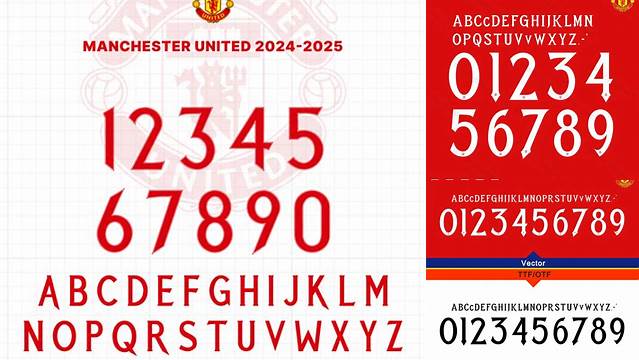
Hey guys! Are you a die-hard Manchester United fan looking to spice up your digital life? Well, you've come to the right place! In this article, we're diving deep into the world of Manchester United fonts, specifically focusing on the elusive Manchester United font 2026 and how you can snag it for your PC. Whether you're designing a fan website, creating social media graphics, or just want to show your support in your documents, having the right font is crucial. So, let's get started and explore everything you need to know about getting your hands on that perfect font!
1. Understanding the Importance of Official Fonts
Okay, so why is the official font so important anyway? Well, for starters, it's all about authenticity. Using the official Manchester United font gives your projects a professional and genuine feel. Imagine creating a banner with a generic font – it just wouldn't have the same impact, right? The official font is part of the club's branding, and it helps maintain a consistent image across all platforms. This consistency is super important for building brand recognition and loyalty. Think about it – when you see that specific font, you instantly associate it with Manchester United. That’s the power of a well-chosen, official typeface. Plus, using the right font shows that you're a true fan who pays attention to the details. It's like wearing the official jersey versus a knock-off – the difference is clear to anyone who knows their stuff. So, let’s dive deeper into why these fonts are more than just letters and numbers.
The Role of Typography in Branding
Typography, guys, is a huge part of branding. It’s not just about picking a font that looks cool; it's about choosing a typeface that reflects the club's personality and values. For Manchester United, the font needs to be strong, bold, and instantly recognizable. It’s got to convey a sense of history, tradition, and winning spirit. The font used in the club's logo, jerseys, and official communications plays a massive role in shaping the team's identity. It’s what makes the brand cohesive and memorable. Think about other major brands – Coca-Cola, Disney, even tech giants like Apple – they all have distinctive fonts that are synonymous with their brand. That’s the level of importance we’re talking about. So, when you’re looking for that Manchester United font, you’re not just looking for letters; you’re looking for a piece of the brand itself.
Maintaining Consistency Across Platforms
Consistency, my friends, is key in branding. Imagine if Manchester United used a different font on their website, social media, and merchandise – it would be a branding nightmare! Using the official Manchester United font across all platforms ensures that everything looks and feels like it belongs to the club. This consistency helps build trust and recognition with fans. Whether you’re seeing the font on a player’s jersey, a billboard, or a digital graphic, it reinforces the club’s identity. This is why major sports teams and brands invest so much in their visual identity guidelines. It’s not just about aesthetics; it’s about creating a cohesive and recognizable brand experience. So, when you download that Manchester United font 2026, you’re contributing to this consistency and showing your support in a visually authentic way.
Showing Support with the Right Font
Let's be real, using the official Manchester United font is a badge of honor for any true fan. It's a way to show your support and passion for the club in a tangible way. Whether you’re creating fan art, designing a personal website, or just want your documents to reflect your fandom, using the right font makes a statement. It says, "I'm a Red Devil, and I'm proud of it!" Think about it – when you see someone using the official font, you know they’re serious about their support. It’s like wearing the team’s colors or displaying a club flag. It’s a visual signal that you’re part of the Manchester United family. So, go ahead and download that Manchester United font 2026 and let your fandom shine through in every project you create.
2. Identifying the Official Manchester United Font
Okay, so how do you actually identify the official Manchester United font? It's not always as straightforward as you might think. Clubs often use custom fonts or variations of existing fonts, so it can be tricky to pinpoint the exact one. One of the best ways to identify the font is by looking at official Manchester United materials, like their website, merchandise, and match-day programs. Pay close attention to the font used for player names and numbers on the jerseys, as well as any official club documents. You can also check out Manchester United’s brand guidelines, if they are publicly available. These guidelines often specify the fonts used for different purposes. Once you have a good idea of what the font looks like, you can use online font identification tools to help you narrow down the possibilities. Let’s dive into some specific ways to figure out which font is the real deal.
Examining Official Club Materials
One of the best ways to identify the official Manchester United font is to examine official club materials. This includes everything from their website and social media graphics to their match-day programs and merchandise. Pay close attention to the font used for player names and numbers on the jerseys, as well as any official club documents. Often, the font used in these materials is a custom font or a licensed font that is specifically chosen for the club's branding. By carefully studying these materials, you can get a good sense of the font's characteristics, such as its weight, style, and overall appearance. This will help you narrow down your search when you start looking for the font online. Remember, the devil is in the details, so take your time and really analyze the fonts used in official Manchester United materials.
Checking Brand Guidelines (If Available)
If you're really serious about finding the official Manchester United font, checking the club's brand guidelines is a great place to start. Many major sports teams and organizations have publicly available brand guidelines that outline their visual identity, including the fonts they use. These guidelines often specify the exact font names and variations used for different purposes, such as headlines, body text, and logos. While Manchester United's brand guidelines may not be readily available to the public, it's worth doing some digging to see if you can find them. You might be able to find snippets of information on design blogs or forums, or you could try contacting the club directly to inquire about their brand guidelines. If you're lucky enough to find them, you'll have a definitive answer to your font search.
Using Online Font Identification Tools
If you're having trouble identifying the official Manchester United font by eye, don't worry – there are plenty of online font identification tools that can help. These tools allow you to upload an image of the font you're trying to identify, and they will analyze the image and suggest potential matches from their font libraries. Some popular font identification tools include WhatTheFont, Font Squirrel's Matcherator, and Identifont. To use these tools effectively, it's important to upload a clear, high-resolution image of the font. The more detailed the image, the better the tool will be able to match the font. Once you've uploaded your image, the tool will typically provide a list of potential matches, along with links to where you can download or purchase the font. This can be a quick and easy way to narrow down your search and find the perfect Manchester United font for your project.
3. Sources for Downloading Manchester United Fonts
Alright, so you know why the official font is important and you've got a good idea of what it looks like. Now, where can you actually download Manchester United fonts? This is where things can get a little tricky. Official club fonts are often proprietary, meaning they're not freely available for download. However, there are a few avenues you can explore. First, check official sources like the Manchester United website or their official merchandise store. Sometimes, they offer font downloads as part of fan kits or promotional materials. Second, look for reputable font websites that offer a wide variety of typefaces. While you might not find the exact official font, you might find a close match that captures the same spirit. Finally, be cautious of unofficial websites offering free downloads. These sites can be risky, as they may contain malware or offer fonts that are not properly licensed. Let’s break down these sources in more detail.
Official Manchester United Website
Your first stop in the quest for the Manchester United font should definitely be the official Manchester United website. Sometimes, the club offers downloadable resources for fans, which might include wallpapers, graphics, and yes, even fonts! Keep an eye out for sections like the fan zone, media kit, or press releases, as these are the most likely places to find such resources. While it's not guaranteed that you'll find the exact font you're looking for, it's always worth checking the official source first. If the font is available, it will likely be in a downloadable format such as TTF or OTF. Plus, downloading from the official website ensures that you're getting a legitimate and safe file, free from any potential malware or viruses. So, make it a habit to check the official site regularly – you never know when they might release new fan resources.
If the official Manchester United website doesn't have what you're looking for, your next best bet is to explore reputable font websites. These websites offer a vast collection of fonts, both free and paid, and they often have a search feature that allows you to filter by style, category, and license type. Some popular font websites include DaFont, Font Squirrel, Google Fonts, and MyFonts. While you might not find the exact official Manchester United font on these sites, you can often find similar fonts that capture the same spirit and aesthetic. When searching, try using keywords like "sporty," "bold," "modern," or "geometric" to narrow down your results. Also, be sure to check the licensing terms of any font you download, as some fonts may only be free for personal use and require a commercial license for business purposes. By exploring reputable font websites, you can expand your options and find a font that perfectly suits your needs.
Cautions Regarding Unofficial Download Sites
Okay, guys, this is super important: be very cautious when downloading fonts from unofficial websites. The internet is full of sites offering free fonts, but many of these sites are riddled with malware, viruses, and other nasty stuff. Downloading a font from an untrustworthy source could seriously compromise your computer's security. Additionally, many unofficial sites offer fonts that are not properly licensed, which means you could be violating copyright laws by using them. It's always better to be safe than sorry, so stick to official sources and reputable font websites when downloading Manchester United fonts. If a deal seems too good to be true, it probably is. Don't risk your computer's security or legal troubles for a free font – it's just not worth it. Always do your research and download from trusted sources only.
4. Free vs. Paid Fonts: What to Consider
Okay, so you're on the hunt for the Manchester United font, and you've probably noticed there are both free and paid options out there. So, which one should you choose? Well, it really depends on your needs and budget. Free fonts can be a great option if you're just starting out or if you're working on a personal project. However, they often come with limitations. They might not have as many styles or weights as paid fonts, and the quality can vary. Paid fonts, on the other hand, typically offer a wider range of features and better quality. They also come with proper licensing, which is essential if you're using the font for commercial purposes. Let's break down the pros and cons of each option.
Advantages and Disadvantages of Free Fonts
Let's talk about free fonts, guys. The biggest advantage, of course, is that they don't cost you anything! This makes them a great option if you're on a tight budget or just experimenting with different fonts. You can find a wide variety of free fonts online, from classic serif fonts to modern sans-serifs. However, there are some disadvantages to consider. Free fonts often have limited styles and weights, which means you might not be able to achieve the exact look you're going for. The quality of free fonts can also vary widely, with some fonts being poorly designed or containing errors. Additionally, free fonts may have restrictive licenses that limit how you can use them, especially for commercial purposes. So, while free fonts can be a good starting point, it's important to weigh the pros and cons before committing to them for your project, especially when looking for something specific like the Manchester United font.
Benefits of Investing in Paid Fonts
Now, let's chat about the benefits of investing in paid fonts. While they do require a financial investment, paid fonts often offer significant advantages over free fonts. For starters, paid fonts typically have a much wider range of styles and weights, giving you more flexibility and control over your typography. They are also usually designed to a higher standard, with meticulous attention to detail and kerning. This means they'll look great in a variety of sizes and applications. Another major benefit of paid fonts is licensing. When you purchase a paid font, you typically receive a license that allows you to use the font for both personal and commercial projects. This can save you a lot of headaches down the road, especially if you're using the font for business purposes. So, if you're serious about typography and want the best possible results, investing in paid fonts is often the way to go, particularly if you need a professional and authentic look for something like the Manchester United font.
Licensing Considerations for Commercial Use
Okay, guys, this is a super important point: licensing. If you're planning to use the Manchester United font for commercial purposes – like on a website, in marketing materials, or on products you sell – you need to make sure you have the proper license. Using a font without the correct license can lead to some serious legal trouble, including hefty fines. Free fonts often come with licenses that restrict commercial use, while paid fonts typically offer more flexible licensing options. Before you use any font, always carefully read the license agreement to understand what you're allowed to do with it. If you're unsure about the licensing terms, it's always best to err on the side of caution and contact the font designer or foundry for clarification. Don't risk a legal headache – make sure you're properly licensed!
5. Installing Fonts on Your PC: A Step-by-Step Guide
Alright, you've found the perfect Manchester United font and downloaded it to your PC. Now what? Well, the next step is to install it so you can actually use it in your applications. Don't worry, it's a pretty straightforward process, even if you're not super tech-savvy. Whether you're running Windows or macOS, the steps are similar. You'll typically need to locate the font file (usually a TTF or OTF file), then either double-click it and click "Install," or drag it into your system's fonts folder. Let's break it down step by step for both Windows and macOS.
Installing fonts on Windows is a breeze, guys. First, locate the font file you downloaded – it'll usually be a TTF or OTF file. You can typically find it in your Downloads folder. Once you've found the file, there are a couple of ways to install it. The easiest way is to simply double-click the font file. This will open a preview window where you can see what the font looks like. In the top left corner of the window, you'll see an "Install" button. Just click that button, and Windows will install the font for you. Alternatively, you can right-click the font file and select "Install" from the context menu. Another method is to manually copy the font file into your system's fonts folder. To do this, open the Control Panel, go to Appearance and Personalization, and then click Fonts. Drag and drop the font file into this folder, and Windows will install it automatically. Once the font is installed, it should be available in all your applications, including word processors, design software, and more. So, whether you're using it for personal projects or to showcase your Manchester United font, Windows makes the installation process super simple.
Installing fonts on macOS is just as straightforward as it is on Windows, guys. First, locate the font file you downloaded – again, it'll usually be a TTF or OTF file. Double-clicking the font file is the most common way to install it. This will open Font Book, macOS's built-in font management application. Font Book will display a preview of the font and give you the option to install it. Simply click the "Install Font" button at the bottom of the window, and macOS will install the font for you. Alternatively, you can manually drag the font file into the Fonts folder in your Library folder. To access the Library folder, open Finder, click on the Go menu in the menu bar, and hold down the Option key. This will reveal the Library folder in the menu. Click on Library, then open the Fonts folder, and drag the font file into this folder. macOS will install the font automatically. Once the font is installed, it should be available in all your applications. So, whether you're working on a design project or just want to use your new Manchester United font in your documents, macOS makes it super easy to get up and running.
Okay, sometimes things don't go exactly as planned, and you might run into issues installing your Manchester United font. Don't panic! There are a few common troubleshooting steps you can try. First, make sure the font file is not corrupted. If you downloaded it from the internet, try downloading it again from a different source. If you're still having trouble, try restarting your computer. This can often resolve minor software glitches that might be preventing the font from installing. If the font still isn't installing, make sure it's a compatible format (TTF or OTF). Older font formats might not work on modern operating systems. Also, check to see if the font is already installed on your system. If it is, you might need to uninstall the old version before installing the new one. If you're still struggling, try searching online for specific error messages or issues you're encountering. There's a wealth of information available on forums and support websites. And if all else fails, consider reaching out to a tech-savvy friend or a professional for assistance. Font installation can be tricky sometimes, but with a little patience, you'll get it sorted out.
6. Using the Font in Design Software
So, you've successfully installed the Manchester United font on your PC – awesome! Now it's time to put it to use in your favorite design software. Whether you're using Adobe Photoshop, Illustrator, InDesign, or another program, the process for using a new font is generally the same. You'll need to open your design software, select the text tool, and then choose your newly installed font from the font dropdown menu. Keep in mind that some programs might require you to restart them after installing a new font for it to appear in the list. Once you've selected the font, you can start typing and creating some awesome designs that show off your Manchester United pride. Let's dive into some specific tips for using fonts in design software.
Applying the Font in Adobe Photoshop
If you're using Adobe Photoshop, applying the Manchester United font is a piece of cake, guys. First, open Photoshop and create a new document or open an existing one. Select the Type Tool (the "T" icon) from the toolbar. Click anywhere on your canvas to create a new text layer. Now, look up at the options bar at the top of the screen. You'll see a dropdown menu that displays the current font. Click on this menu to open the font list. Scroll through the list until you find your newly installed Manchester United font, or simply type the name of the font in the search bar. Once you've selected the font, you can start typing your text. You can adjust the font size, color, and other properties using the options in the options bar or the Character panel (Window > Character). Experiment with different styles and effects to create some eye-catching designs. And remember, if you've just installed the font and it's not showing up in the list, try restarting Photoshop – that usually does the trick.
Using the Font in Adobe Illustrator
Using the Manchester United font in Adobe Illustrator is super similar to Photoshop, guys. Open Illustrator and create a new document or open an existing one. Select the Type Tool (the "T" icon) from the toolbar. Click and drag on your canvas to create a text area. Now, go to the Control panel at the top of the screen. You'll see a Character section where you can adjust the font. Click on the font dropdown menu to open the font list. Scroll through the list or type the name of the font in the search bar to find your newly installed Manchester United font. Once you've selected the font, you can start typing your text. You can adjust the font size, kerning, leading, and other properties using the controls in the Character panel (Window > Type > Character). Illustrator also offers some cool typography features, like creating outlines from text and applying effects, so have fun experimenting with different looks. And as with Photoshop, if the font doesn't appear in the list right away, try restarting Illustrator.
Optimizing Text for Readability and Impact
Okay, so you've got your Manchester United font in your design software – that's awesome! But simply using the font isn't enough to create a truly effective design. You need to optimize your text for readability and impact. Think about things like font size, line height, letter spacing, and color contrast. Make sure your text is large enough to read easily, especially in smaller sizes or on screens. Adjust the line height (leading) to create a comfortable reading experience – too little or too much space can make text look cramped or disjointed. Pay attention to letter spacing (tracking) and kerning (the space between individual letters) to ensure your text looks balanced and professional. And don't forget about color contrast! Make sure your text stands out against the background color. Experiment with different combinations to find what works best. By paying attention to these details, you can create text that is not only visually appealing but also easy to read and understand. This is especially important when you're trying to convey a message or promote something, like your love for Manchester United!
7. Alternative Fonts for Manchester United Branding
Sometimes, you might not be able to get your hands on the exact official Manchester United font. Or, you might want to use a different font for certain projects while still maintaining a consistent brand feel. That's where alternative fonts come in! There are many fonts out there that capture a similar spirit and aesthetic to the official Manchester United font, and they can be great substitutes for various design needs. When choosing an alternative font, look for typefaces that are bold, sporty, and modern, with a strong geometric feel. Sans-serif fonts often work well for this purpose, as they tend to have a clean and contemporary look. Let's explore some specific alternative fonts that might be a good fit for your Manchester United-related projects.
Fonts with a Similar Style and Feel
When you're looking for alternative fonts that capture the Manchester United font vibe, you've got to think about the key characteristics of the official font. It's usually bold, modern, and has a strong, sporty feel. So, what fonts out there share these traits? One great option is Bebas Neue. It's a popular sans-serif font that's clean, geometric, and very readable, making it a solid choice for headlines and titles. Another good pick is Montserrat, which has a similar modern aesthetic and comes in a variety of weights, giving you plenty of flexibility. For something a bit more unique, you might consider Oswald, which is a slightly condensed sans-serif that still feels strong and impactful. And don't forget about Roboto, a Google Font that's versatile, readable, and has a modern, techy feel. When you're choosing an alternative, think about how it will work with the rest of your design and how well it captures the overall brand personality of Manchester United.
Using Sans-Serif Fonts for a Modern Look
If you're aiming for a modern and clean aesthetic in your Manchester United-related designs, using sans-serif fonts is a great way to go. Sans-serif fonts lack the small decorative strokes (serifs) that you see on fonts like Times New Roman, which gives them a more contemporary and minimalist appearance. This makes them ideal for a variety of applications, from website headers to social media graphics. Some excellent sans-serif fonts to consider include Helvetica, Arial, Open Sans, and Lato. Helvetica is a classic choice that's known for its readability and versatility. Arial is a widely available alternative that's similar to Helvetica. Open Sans is a Google Font that's optimized for screens, making it a great choice for websites and digital designs. And Lato is another Google Font that's clean, modern, and highly readable. When choosing a sans-serif font, think about the overall tone you want to convey and select a font that aligns with your vision.
Combining Different Fonts for Visual Hierarchy
Okay, guys, here's a pro tip for you: don't be afraid to combine different fonts in your designs! Using a single font for everything can make your design look a bit flat and monotonous. Combining different fonts can create visual hierarchy and make your designs more engaging. The key is to choose fonts that complement each other and create a balanced look. For example, you might use a bold sans-serif font like Bebas Neue for headlines and a more readable sans-serif font like Open Sans for body text. Or, you could pair a strong sans-serif font with a subtle serif font for a touch of elegance. When combining fonts, limit yourself to two or three fonts at most to avoid creating a cluttered look. And always make sure the fonts you choose work well together in terms of style and weight. Experiment with different combinations to find what works best for your Manchester United-themed designs.
8. Legal Considerations When Using Fonts
Alright, let's talk about something super important: the legal stuff! When you're using fonts, especially for commercial projects, you need to be aware of the legal considerations involved. As we touched on earlier, fonts are software, and they're protected by copyright laws. This means you can't just download any font from the internet and use it however you want. You need to make sure you have the proper license to use the font for your specific purpose. Different fonts come with different licenses, which dictate how you can use the font, whether it's for personal or commercial use, and whether you can embed it in documents or websites. Let's break down some key legal considerations to keep in mind when using fonts, especially when dealing with something like the Manchester United font.
Understanding Font Licensing Terms
Understanding font licensing terms is crucial, guys, especially if you're planning to use the Manchester United font or any other font for commercial purposes. Font licenses are legal agreements that outline how you're allowed to use the font. These licenses can vary widely, so it's important to read them carefully before using a font in your projects. Some licenses are very permissive, allowing you to use the font for almost any purpose, while others are more restrictive, limiting how you can use the font or even charging additional fees for certain types of use. For example, a font might have a license that allows you to use it for print projects but not for embedding in websites or mobile apps. Or, a font might have a license that allows personal use but requires a commercial license for business purposes. The best way to understand the licensing terms is to read the End User License Agreement (EULA) that comes with the font. This document will spell out exactly what you're allowed to do with the font. If you're unsure about anything, it's always best to err on the side of caution and contact the font designer or foundry for clarification.
Distinguishing Between Personal and Commercial Use
Knowing the difference between personal and commercial use is key when it comes to font licensing, guys. Personal use typically refers to using a font for non-profit projects, like creating invitations for a birthday party or designing a personal blog. Commercial use, on the other hand, involves using a font for any project that's intended to generate revenue, such as creating marketing materials for a business or designing a website for a client. Many free fonts come with licenses that allow personal use but restrict commercial use. This means you can use the font for free for your personal projects, but you'll need to purchase a commercial license if you want to use it for business purposes. Paid fonts typically offer more flexible licensing options that allow both personal and commercial use. However, it's still important to read the license agreement carefully to understand the specific terms. When in doubt, it's always best to err on the side of caution and make sure you have the appropriate license for your intended use, especially if you're working with a font related to a brand like Manchester United.
Avoiding Copyright Infringement
Copyright infringement is a serious issue, guys, and it's something you want to avoid at all costs when using fonts. As we've discussed, fonts are protected by copyright laws, and using a font without the proper license can lead to legal trouble. Copyright infringement occurs when you use a font in a way that violates the font's license agreement. This could include using a font for commercial purposes without a commercial license, distributing a font to others without permission, or modifying a font without authorization. To avoid copyright infringement, always make sure you have the appropriate license for the way you're using the font. Read the font's EULA carefully to understand the licensing terms, and if you're unsure about anything, contact the font designer or foundry for clarification. Be especially careful when downloading fonts from unofficial websites, as these sites often offer fonts that are not properly licensed. Sticking to reputable font websites and official sources is the best way to ensure you're using fonts legally, particularly when you're dealing with something as brand-sensitive as the Manchester United font.
9. Tips for Creating Authentic Fan Content
Okay, so you're a die-hard Manchester United fan and you want to create some awesome fan content that really shows your support. That's fantastic! But how do you make sure your content is authentic and resonates with other fans? Well, using the official Manchester United font is a great starting point, but it's not the only thing to consider. You also want to think about the overall tone and style of your content, the imagery you use, and the message you're trying to convey. Authenticity is all about capturing the true spirit of the club and its fans. Let's dive into some tips for creating fan content that feels genuine and engaging.
Using Official Colors and Imagery
When you're creating fan content, using the official Manchester United colors and imagery is a must, guys. It's one of the easiest ways to make your content feel authentic and instantly recognizable. The club's primary colors – red, white, and black – are iconic and should be incorporated into your designs. You can also use official logos, player photos, and stadium imagery to further enhance the look and feel of your content. These visual elements are a key part of the Manchester United brand identity and will help your creations resonate with other fans. You can often find official logos and imagery on the club's website or in their media kit. Just make sure you have the proper permissions to use these assets, especially if you're planning to use them for commercial purposes. By using the official colors and imagery, you're not only showing your support for Manchester United, but you're also creating content that feels professional and credible, especially when paired with the official Manchester United font.
Capturing the Club's History and Tradition
Manchester United has a rich history and tradition, and capturing that in your fan content can make it truly special, guys. Think about incorporating elements that reference the club's past, such as iconic players, legendary matches, and memorable moments. You could use vintage photos, classic slogans, or historical crests to add a sense of nostalgia and heritage to your designs. Researching the club's history will give you a deeper understanding of its values and identity, which you can then reflect in your content. For example, you could create a tribute to the Busby Babes or a timeline of the club's major trophies. By showcasing the club's history, you're not only celebrating its achievements, but you're also connecting with other fans who share a passion for the club's legacy. And of course, using the official Manchester United font can help tie everything together and create a cohesive look.
Showcasing Passion and Enthusiasm
Above all, guys, the key to creating authentic fan content is to showcase your passion and enthusiasm for Manchester United. Let your love for the club shine through in your designs and messages. Whether you're creating a social media graphic, a fan video, or a website, inject your personality and excitement into your work. Use strong, emotive language, share your favorite memories, and express your hopes for the future of the club. Authenticity comes from the heart, so don't be afraid to be genuine and show your true colors. Other fans will appreciate your passion and connect with your content on a deeper level. Remember, the best fan content is created by fans who are truly passionate about their team. So go ahead, embrace your inner Red Devil, and let your creativity flow, using the Manchester United font and all your passion!
10. Future Trends in Sports Typography
Okay, let's shift gears a bit and talk about the future, guys. What are some of the trends we can expect to see in sports typography in the years to come? The world of design is constantly evolving, and typography is no exception. We're seeing a growing emphasis on bold, dynamic fonts that capture the energy and excitement of sports. We're also seeing more and more teams and leagues creating custom fonts that are unique to their brand. And with the rise of digital media, there's a greater focus on fonts that perform well on screens and in motion graphics. Let's explore some of these future trends in more detail, so you can stay ahead of the curve when it comes to your Manchester United font and design choices.
Bold and Dynamic Font Choices
In the future, we're likely to see even bolder and more dynamic font choices in sports branding, guys. Teams and leagues are increasingly looking for typefaces that command attention and convey a sense of energy and excitement. Think thick, heavy fonts with strong geometric shapes and sharp angles. These fonts are designed to make a statement and stand out in a crowded visual landscape. They're perfect for headlines, logos, and other key branding elements. We're also seeing more use of display fonts, which are fonts designed specifically for large sizes and often have unique and unconventional letterforms. The goal is to create a visual identity that's both impactful and memorable. So, if you're looking to create cutting-edge fan content, consider experimenting with bold and dynamic fonts that capture the spirit of the game. Even when considering your Manchester United font, think about how you can use bold variations to create impact.
Custom Fonts for Team Branding
One of the biggest trends in sports typography is the creation of custom fonts for team branding, guys. More and more teams and leagues are realizing the importance of having a unique typeface that sets them apart from the competition. A custom font can become an integral part of a team's visual identity, just like their logo and colors. It can be used across all platforms, from jerseys and merchandise to websites and social media graphics. Creating a custom font allows a team to express its personality and values in a unique and memorable way. It also gives them greater control over their brand image. We've seen some fantastic examples of custom sports fonts in recent years, and this trend is only going to continue to grow. So, who knows, maybe Manchester United will unveil a brand-new, custom Manchester United font in the future!
Optimizing Fonts for Digital Media
With the rise of digital media, optimizing fonts for screens and motion graphics is becoming increasingly important, guys. Sports teams and leagues are communicating with fans more and more online, so it's crucial that their fonts look great on websites, social media, and streaming platforms. This means choosing fonts that are highly readable on screens, even in small sizes. It also means considering how fonts will perform in motion graphics and animations. Some fonts work better than others in motion, so it's important to test them out and see how they look. Variable fonts, which allow for greater flexibility and customization, are also becoming more popular for digital use. As technology continues to evolve, we can expect to see even more innovation in font design for digital media. So, keep an eye out for fonts that are specifically designed for screens and motion, and consider how you can use them to enhance your Manchester United fan content online.
So there you have it, guys! A comprehensive guide to finding and using the Manchester United font 2026 for your PC. We've covered everything from understanding the importance of official fonts to exploring alternative options, installing fonts on your system, and using them in design software. We've also delved into the legal considerations of font usage and offered tips for creating authentic fan content. And finally, we've looked ahead to the future of sports typography and the trends we can expect to see. Whether you're a seasoned designer or a casual fan, we hope this article has given you the knowledge and inspiration you need to create awesome Manchester United-themed designs. Now go out there and show your support for the Red Devils in style!